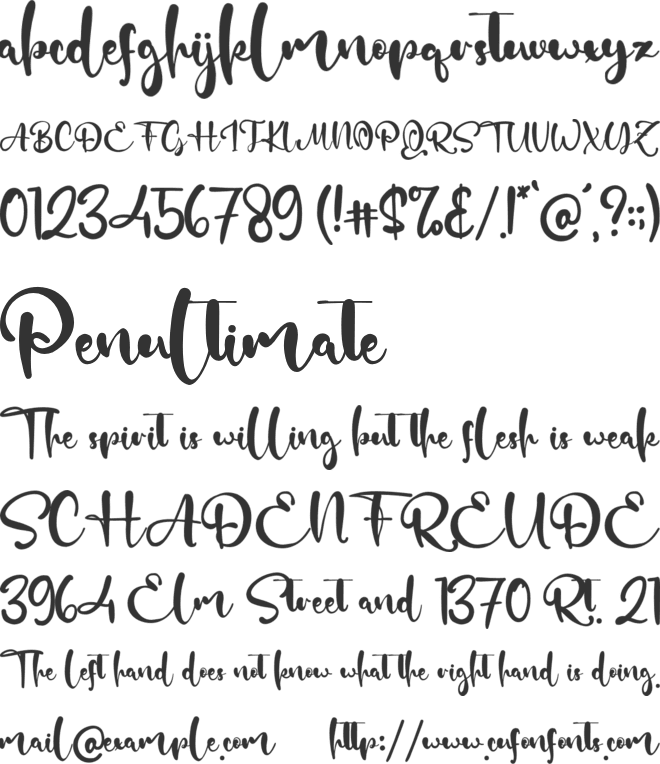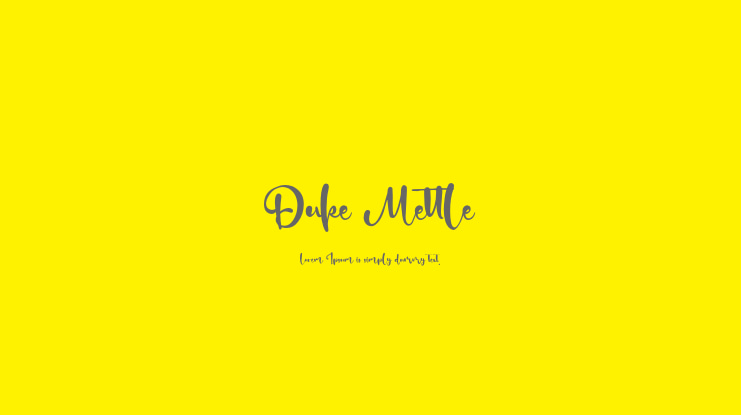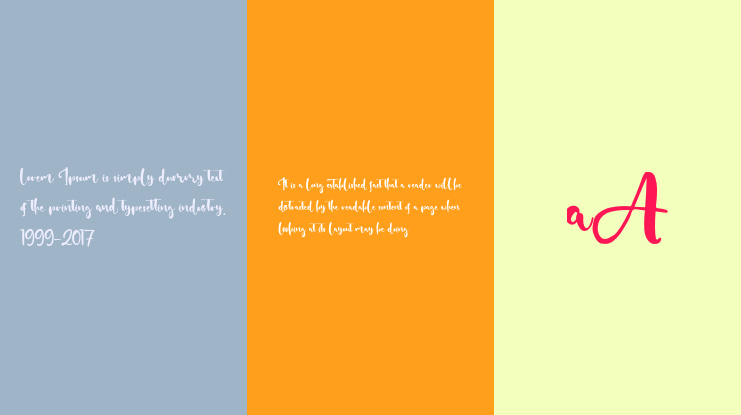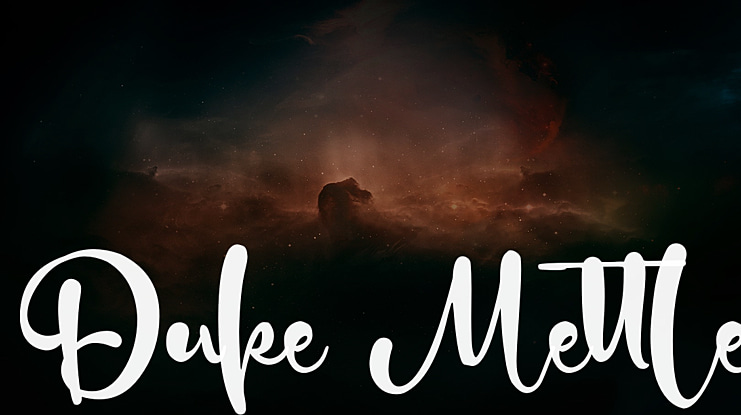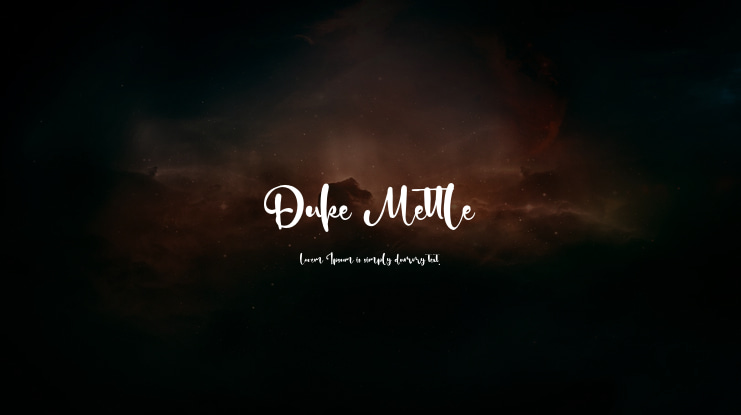
Duke Mettle Font
Introducing our New Font, very suitable as to make adorable invitation for wedding, birthday, special day. A collection of letters and numbers suitable your projects also great for Logotype, Branding Design, Logo Design, Digital Lettering Arts, T-Shirt/Apparel, Poster, Magazine, Signs, Advertising Design, and also perfect for your other projects branding.